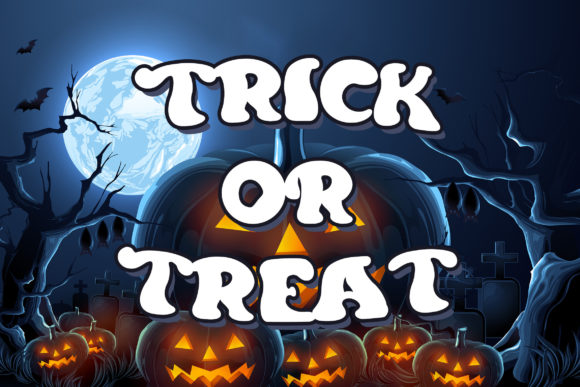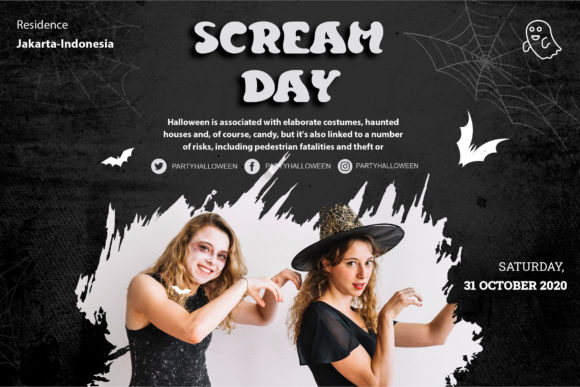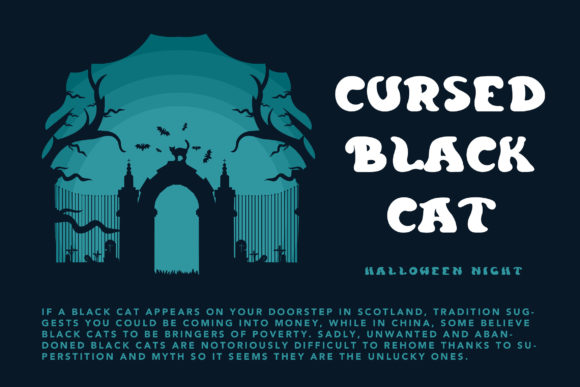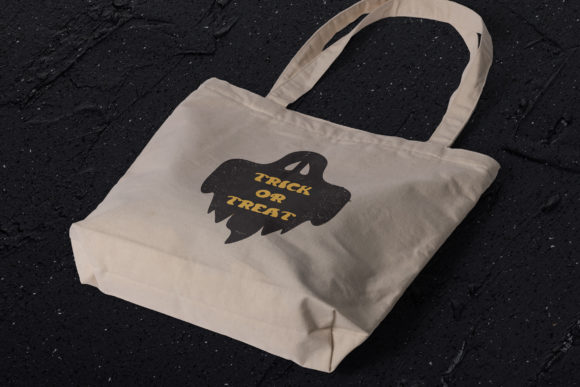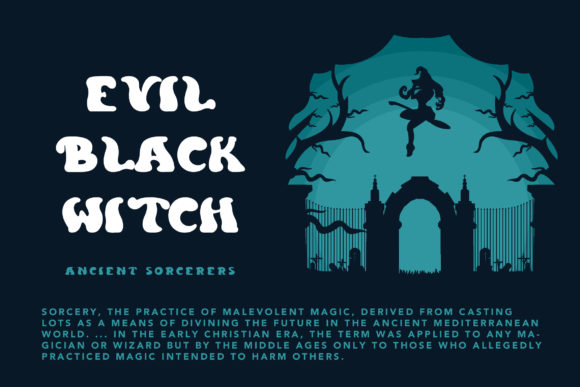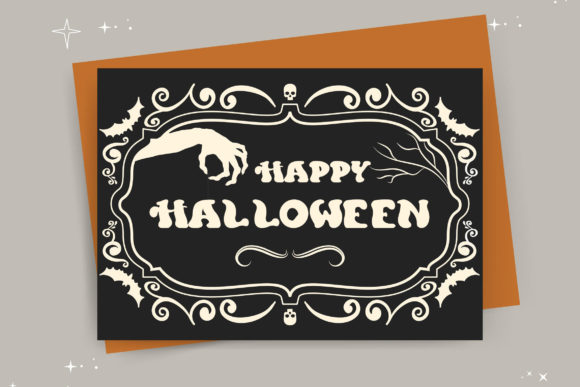
Unleash the Spooky Charm with Curious Soul Font: A Perfect Addition to Your Halloween Designs
Are you a designer or crafter looking for a unique and captivating font to elevate your Halloween designs or October party decorations? Look no further than the Curious Soul Font, a spooky and whimsical display font that is sure to add a touch of magic to your creations. In this article, we’ll dive into the world of Curious Soul Font, exploring its features, uses, and benefits, and why it’s a must-have for any designer or crafter looking to create eye-catching and eerie designs.
What is Curious Soul Font?
Curious Soul Font is a display font designed to evoke a sense of spookiness and whimsy. Its unique and quirky design makes it perfect for Halloween-themed designs, October party decorations, and any project that requires a touch of eeriness. The font’s distinctive style is sure to grab attention and leave a lasting impression on your audience.
Features of Curious Soul Font
So, what makes Curious Soul Font so special? Here are some of its key features:
- Unique and quirky design: Curious Soul Font boasts a one-of-a-kind design that is sure to stand out from the crowd.
- Spooky and whimsical: The font’s spooky and whimsical style makes it perfect for Halloween-themed designs and October party decorations.
- Display font: Curious Soul Font is designed as a display font, making it ideal for headlines, titles, and other attention-grabbing elements.
Uses of Curious Soul Font
Curious Soul Font is a versatile font that can be used in a variety of projects, including:
- Halloween designs: The font is perfect for creating spooky and eye-catching Halloween designs, such as posters, flyers, and invitations.
- October party decorations: Add a touch of whimsy and spookiness to your October party decorations with Curious Soul Font.
- Craft projects: The font is ideal for craft projects, such as handmade cards, gift tags, and other paper crafts.
- Digital projects: Curious Soul Font can also be used in digital projects, such as social media graphics, blog posts, and website headers.
Benefits of Using Curious Soul Font
So, why should you choose Curious Soul Font for your next project? Here are some benefits of using this unique font:
- Stand out from the crowd: Curious Soul Font’s unique design ensures that your project will stand out from the crowd.
- Add a touch of whimsy: The font’s whimsical style adds a touch of playfulness and fun to your designs.
- Easy to read: Despite its quirky design, Curious Soul Font is easy to read, making it perfect for headlines and titles.
- Versatile: The font can be used in a variety of projects, from Halloween designs to digital projects.
Tips for Using Curious Soul Font
Here are some tips for using Curious Soul Font in your projects:
- Use it sparingly: While Curious Soul Font is eye-catching, it’s best to use it sparingly to avoid overwhelming your design.
- Pair it with other fonts: Experiment with pairing Curious Soul Font with other fonts to create a unique and visually appealing design.
- Experiment with colors: The font looks great in bold, bright colors, so don’t be afraid to experiment with different color schemes.
In conclusion, Curious Soul Font is a spooky and whimsical display font that is perfect for Halloween designs, October party decorations, and any project that requires a touch of eeriness. Its unique design, versatility, and ease of use make it a must-have for designers and crafters looking to create eye-catching and captivating designs. So, why not give Curious Soul Font a try and see the magic it can add to your next project?